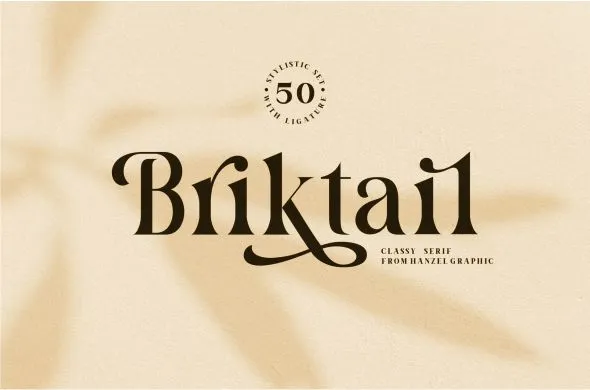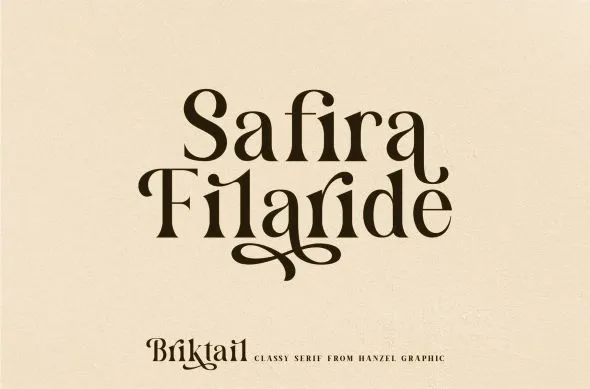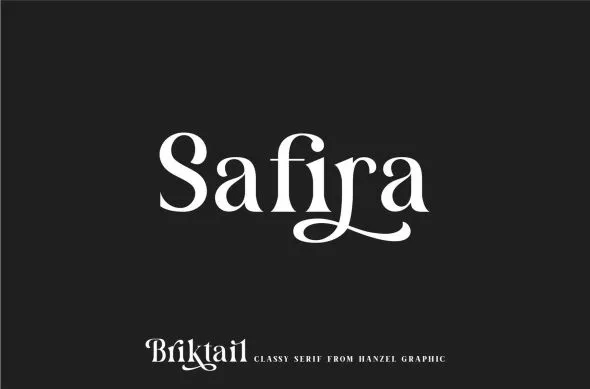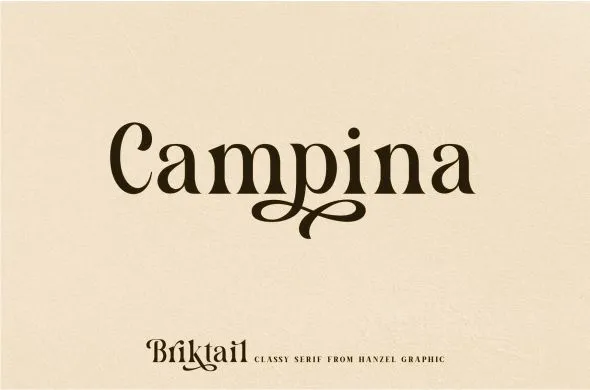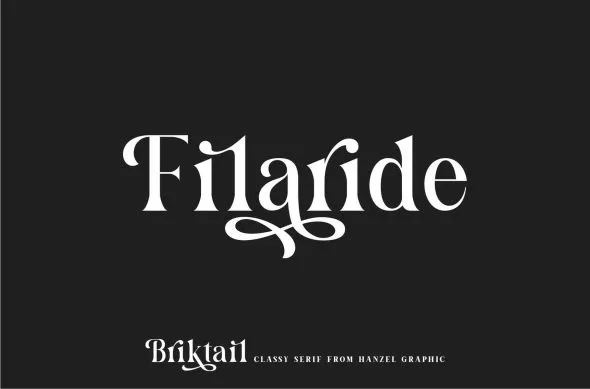
About Briktail Font
I’m a typographer and graphic designer who’s worked with everything from tech startups to artisan brands. I recently came across the Briktail Font while exploring type options for a feminine retro-inspired branding project. The font caught my eye right away. It felt bold, classy, and just different. I used it for a logo and editorial mockup, and honestly, it gave the design a whole new feel.
Fonts matter. The right serif font can turn a simple concept into a full brand identity. That’s why I’m reviewing Briktail Font because it’s worth sharing. If you’re into fonts that pair beautifully with many styles and still stand out, this one’s worth your attention.
Briktail Font and Its Designer
Briktail Font is a modern serif typeface created by Hanzel Studio. It brings that mix of classic structure and fresh detail. You’ll notice strong, stylish serifs that give every character personality without losing clarity. Briktail feels bold but never overwhelming.
The typeface includes a full set of punctuation and numerals, making it a solid choice for both display and text. This isn’t one of those fonts that only looks good in huge headlines. It’s got balance. That’s what makes it perfect for gorgeous logos, titles, or any editorial layout.
Hanzel Studio designed this font with care. Every curve feels deliberate, and the swashes and alternates give it flexibility. There’s even a broader version of the font included, which creates a completely different vibe. Whether you’re going for classy, vintage, or playful, this font handles it all.
Font Features
Briktail isn’t just a pretty face. It’s functional. The full package includes:
- A complete set of punctuation and numerals
- Swash, Alternate, and Stylistic Set Typeface options
- A broader version of the font for a “Briktai different” look
- Glyphs and ligature access through Adobe software
These features give you full creative control. You can easily switch up a few characters to change the feel of your entire design. Want a more vintage look? Try the swash options. Going for something feminine and editorial? Use the stylistic set.
Briktail Font is incredibly flexible. I’ve already used it on a branding design, but it works just as well in logos, invitations, print layouts, web graphics, product packaging, and greeting templates. It even looks sharp in vintage-style posters and retro-themed branding.
Its serif structure gives it a timeless quality, but the added stylistic elements make it feel fresh. This makes it great for editorial spreads, social media templates, classy product branding, and feminine lookbooks. The font pairs beautifully with many fonts, especially clean sans-serifs, so you can mix and match without overthinking it.
Need something classic yet playful? This font handles both. The alternate characters and glyphs make each project feel tailored, not templated. I see Briktail working great for boutique brands, handmade shops, or anything that needs that extra touch of personality.
Whatever project you’re working on, Briktail will work well. It’s got that balance of charm and clarity.